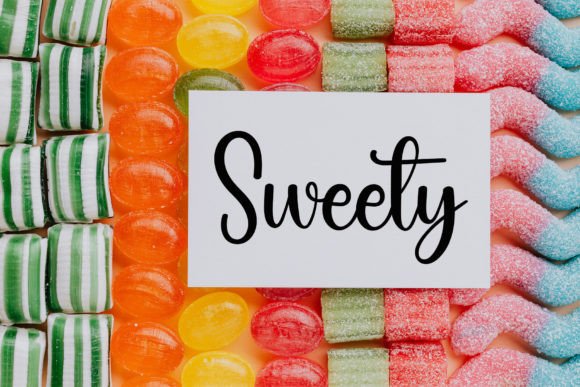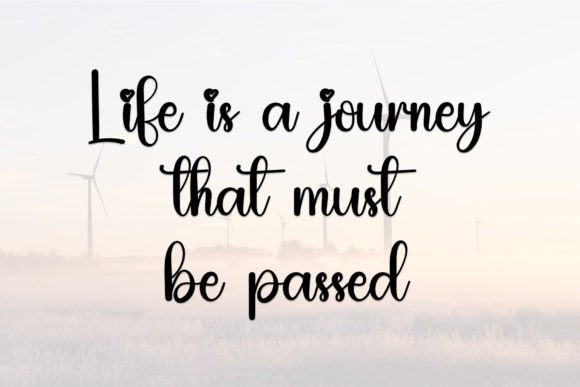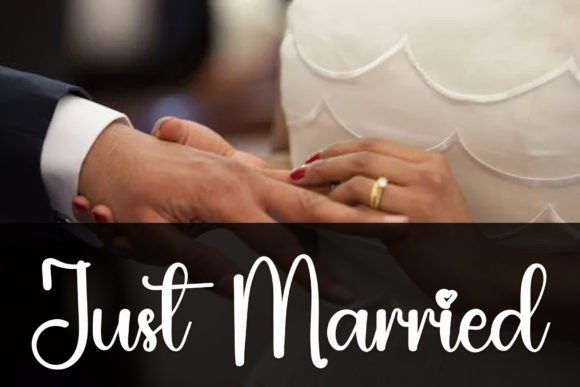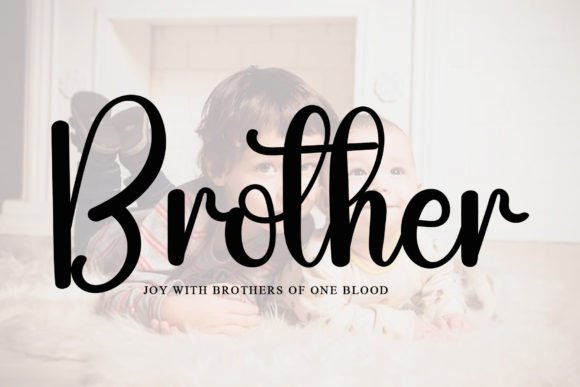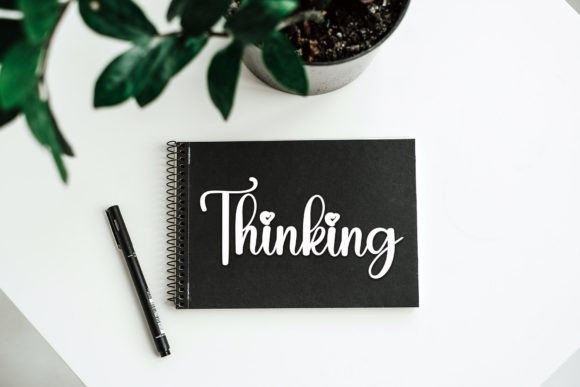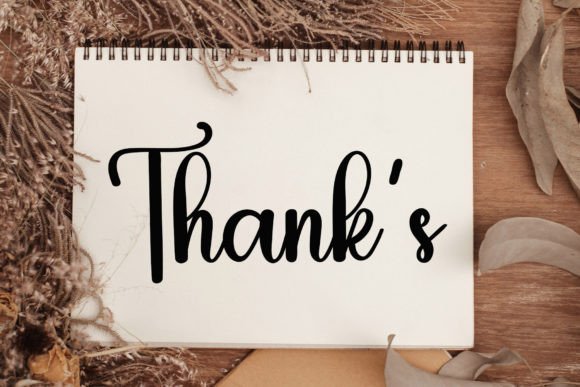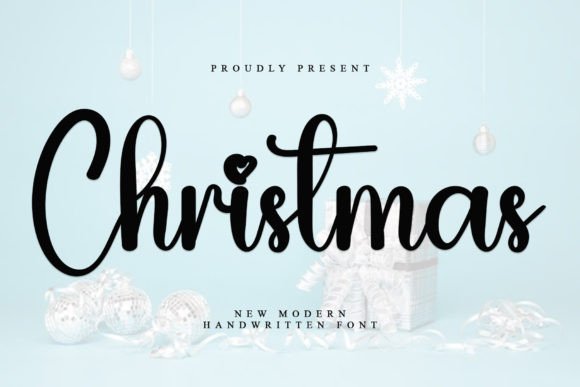
Introducing Christmas Font: The Perfect Blend of Fun and Elegance
Are you looking for a font that can add a touch of magic to your creative projects? Look no further than Christmas Font, a fun and elegant handwritten font that’s perfect for designers and crafters alike. With its unique blend of playfulness and sophistication, this font is sure to turn any idea into a true piece of art.
The Story Behind Christmas Font
Christmas Font is a carefully crafted font that’s designed to bring a touch of festive fun to your designs. Whether you’re creating Instagram posts, DIY projects, or professional designs, this font is the perfect choice. Its elegant and refined lines make it perfect for a wide range of creative applications, from holiday cards and invitations to social media graphics and more.
What Makes Christmas Font So Special?
So, what sets Christmas Font apart from other fonts on the market? Here are just a few reasons why designers and crafters love this font:
- Unique and eye-catching design: Christmas Font features a unique and eye-catching design that’s sure to grab attention. Its elegant lines and playful flourishes make it perfect for creating stunning designs that stand out from the crowd.
- Highly versatile: Whether you’re creating social media graphics, holiday cards, or DIY projects, Christmas Font is the perfect choice. Its elegant and refined lines make it suitable for a wide range of creative applications.
Using Christmas Font for Instagram and Social Media
If you’re looking for a font that can help take your Instagram and social media designs to the next level, Christmas Font is the perfect choice. Its unique and eye-catching design makes it perfect for creating stunning social media graphics, from holiday-themed posts and stories to Instagram stories and more.
Here are just a few ideas for using Christmas Font on Instagram and social media:
- Holiday-themed posts: Use Christmas Font to create stunning holiday-themed posts that are sure to grab attention.
- Instagram stories: Add a touch of elegance and sophistication to your Instagram stories with Christmas Font.
- Social media graphics: Use Christmas Font to create stunning social media graphics that showcase your brand’s personality and style.
Using Christmas Font for DIY Projects
Christmas Font is also perfect for DIY projects, from holiday cards and invitations to craft projects and more. Its elegant and refined lines make it perfect for creating beautiful and professional-looking designs.
Here are just a few ideas for using Christmas Font for DIY projects:
- Holiday cards and invitations: Use Christmas Font to create stunning holiday cards and invitations that are sure to impress.
- Craft projects: Add a touch of elegance and sophistication to your craft projects with Christmas Font.
- Paper crafting: Use Christmas Font to create beautiful paper crafting projects, from gift tags and gift cards to scrapbooking and more.
Christmas Font is a fun and elegant handwritten font that’s perfect for designers and crafters alike. With its unique blend of playfulness and sophistication, this font is sure to turn any creative idea into a true piece of art. Whether you’re looking for fonts for Instagram or calligraphy scripts for DIY projects, Christmas Font is the perfect choice.